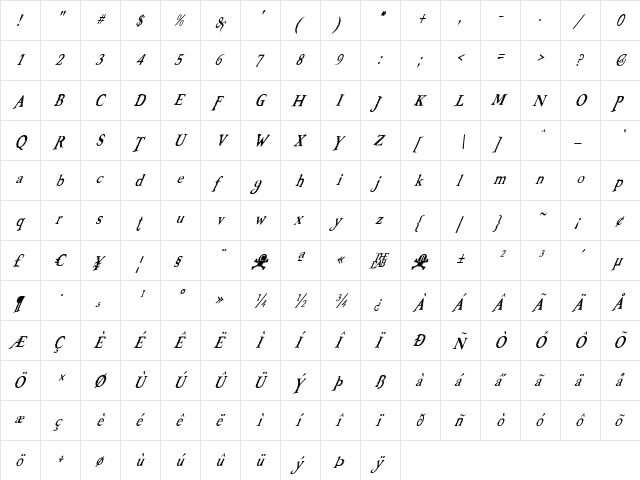
Booter - Zero One Regular Font Preview
Booter - Zero One Regular
Booter - Zero One Regular Font Details
| Designer | Outlines by Graham Meade, space geometry by Apostrophe ('). |
Design Context for Booter - Zero One Typeface
Booter - Zero One takes a measured approach to typography — its balanced proportions and neutral character make it a reliable workhorse for both digital and print work.